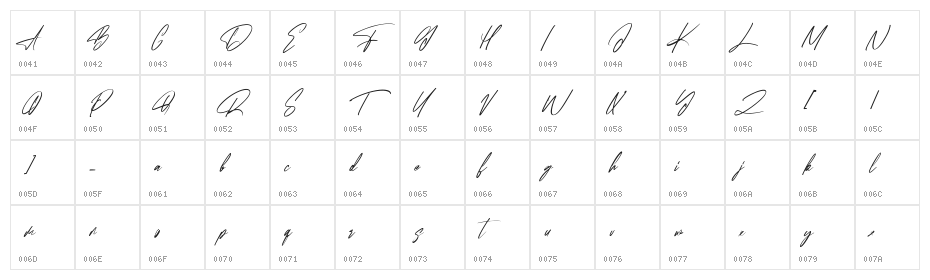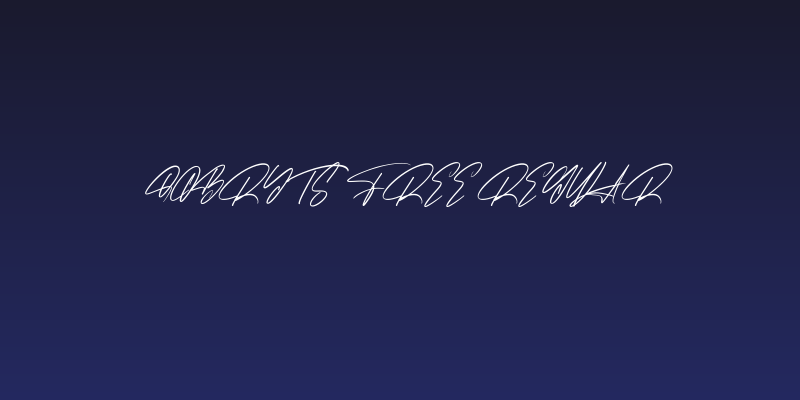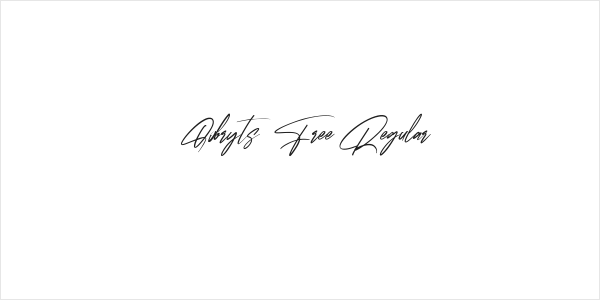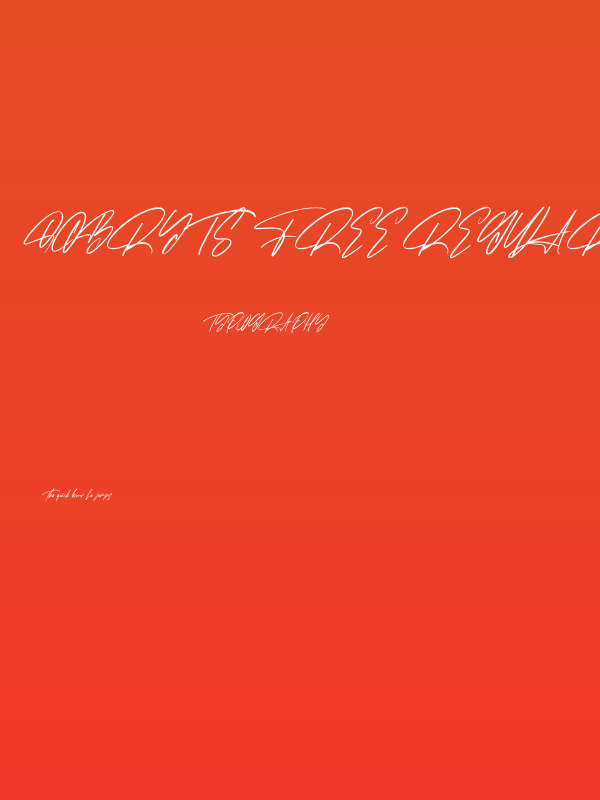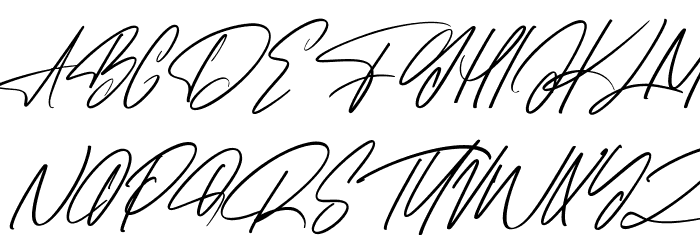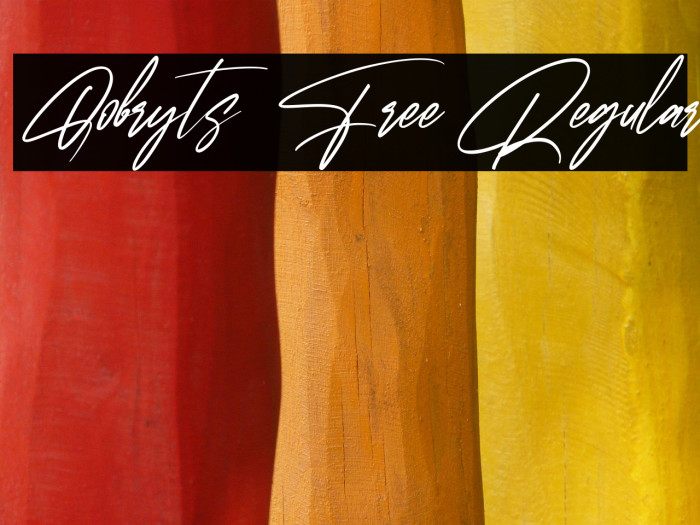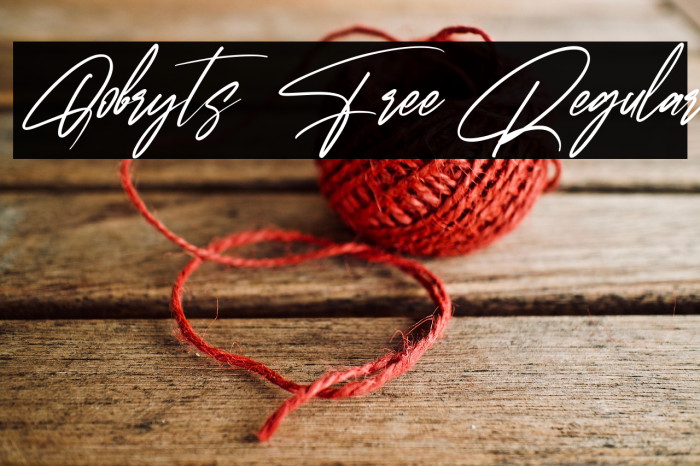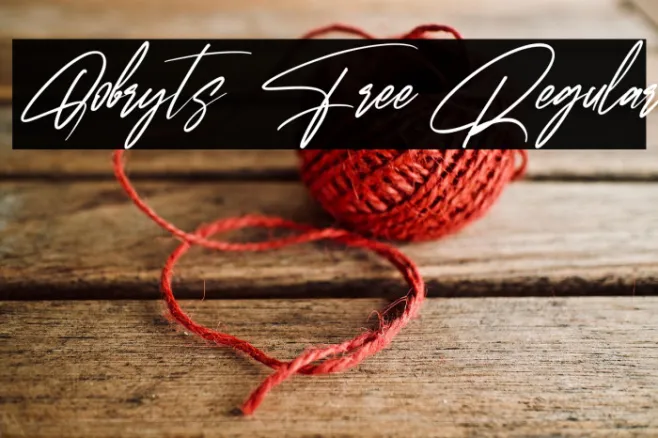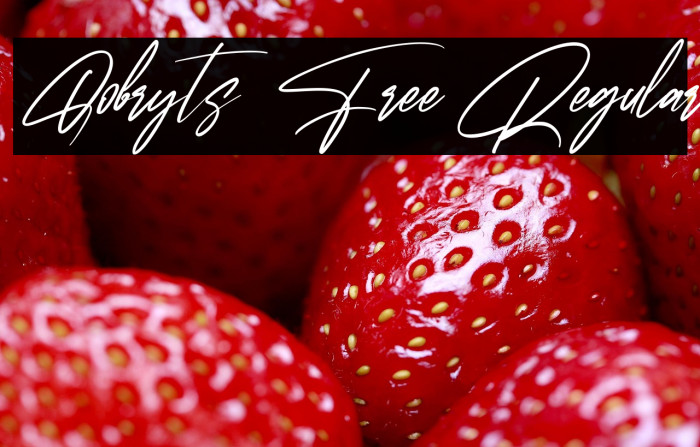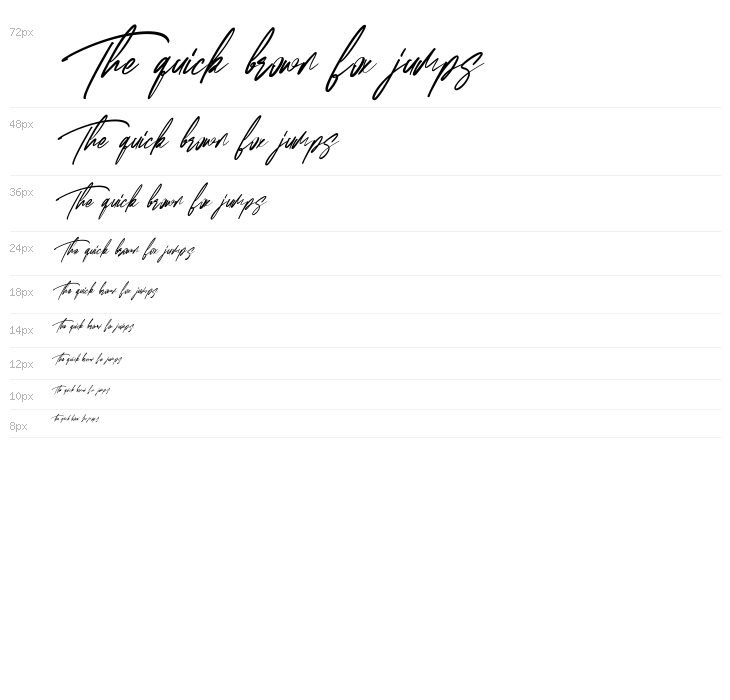
Qobryts Free Regular Font
Qobryts Free Regular Description
This font exhibits a dynamic and flowing script style, characterized by its elegant and fluid strokes. The letters are interconnected, creating a sense of continuity and movement. The uppercase letters are bold and expressive, while the lowercase letters maintain a delicate and graceful appearance. The overall design is reminiscent of handwritten calligraphy, with a modern twist that adds a touch of sophistication. The font's thin lines and high contrast between thick and thin strokes enhance its legibility and aesthetic appeal, making it suitable for creative and artistic projects.
| Proposed Projects | Ideal for wedding invitations, branding, logos, and artistic projects that require a personal touch. |